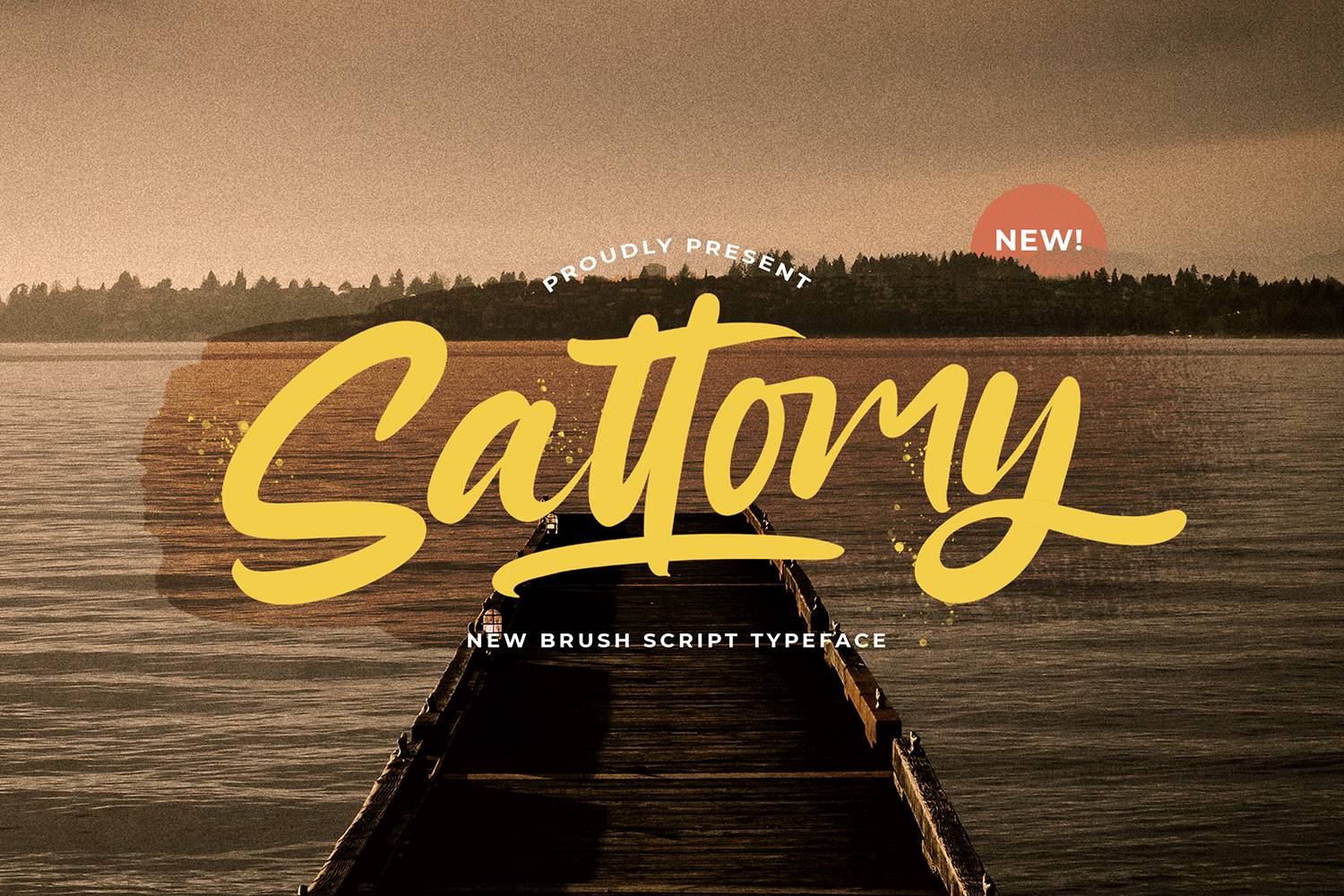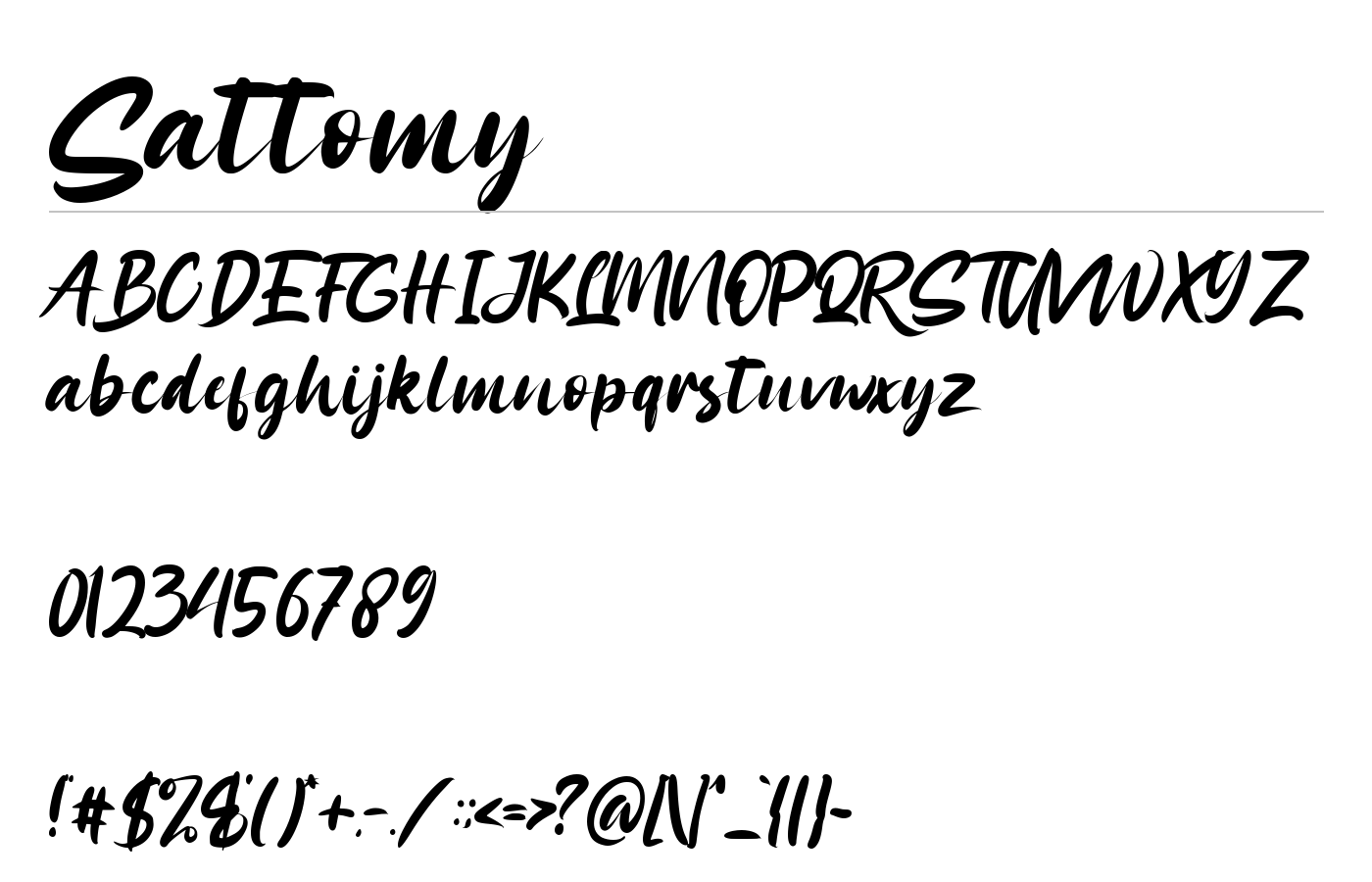
Sattomy is a lively script font with a smooth, brush-style texture that combines bold strokes with elegant, flowing curves. It features both uppercase and lowercase letters with slightly varied thickness, conveying a friendly and approachable feel, perfect for creative branding, invitations, and modern packaging. Its dynamic, handwritten look works well for headlines and logos that need a stylish yet casual voice.
Sattomy Font
About Sattomy Font